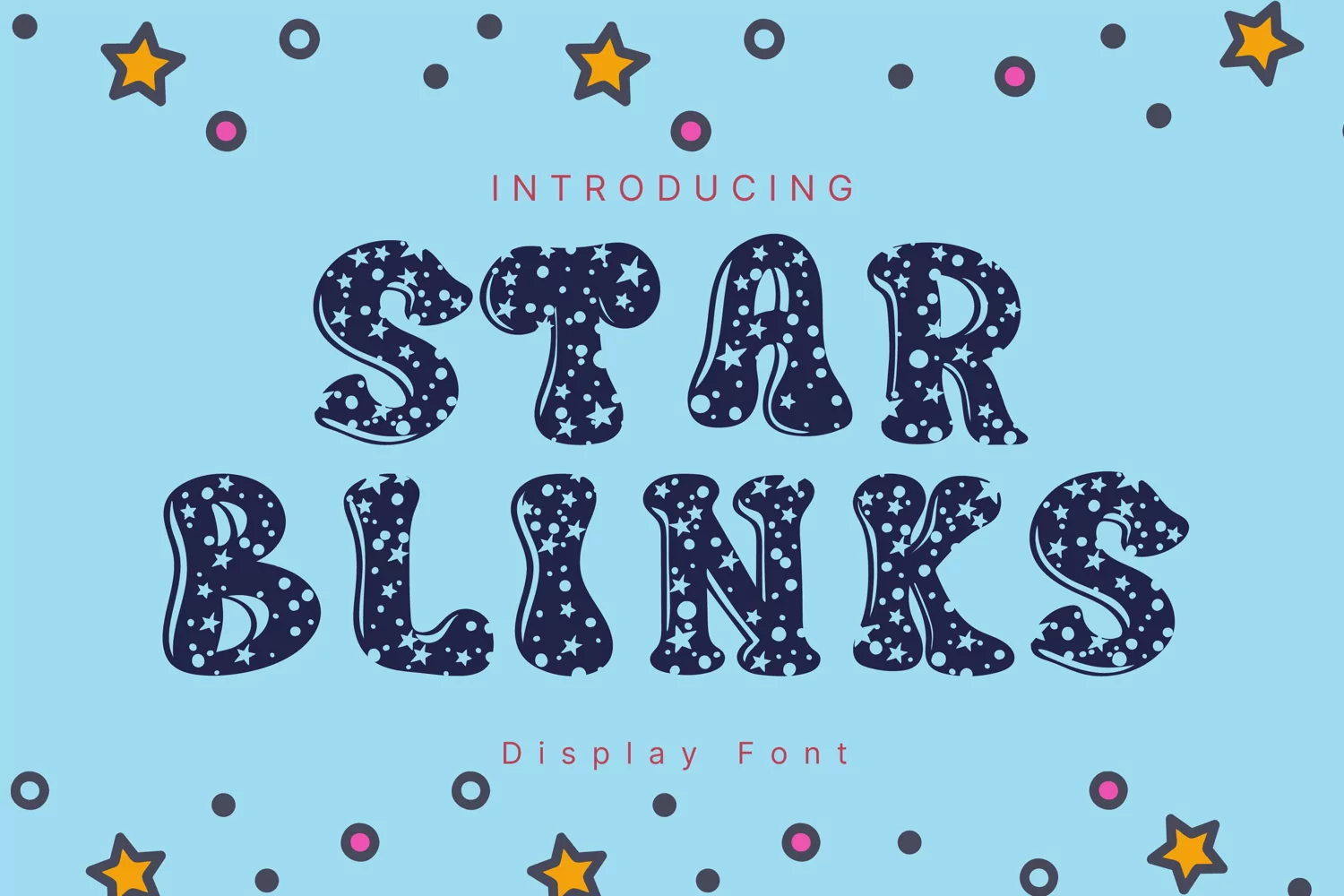
Created By AchiArt
Star Blinks Style
StarBlinks
Star Blinks Style is a whimsical and clean handwritten font. It can easily be matched to an incredibly large set of projects, so add it to your creative ideas and notice how it makes them stand out!
Star Blinks Style
By AchiArt